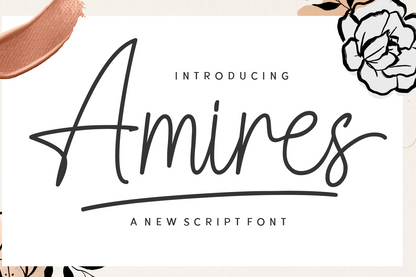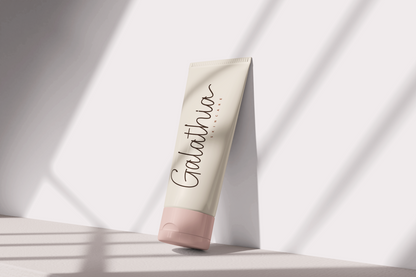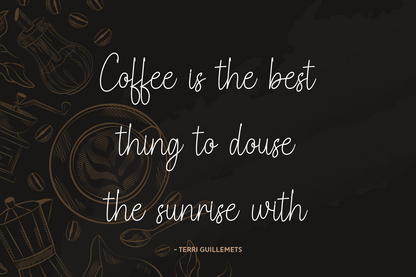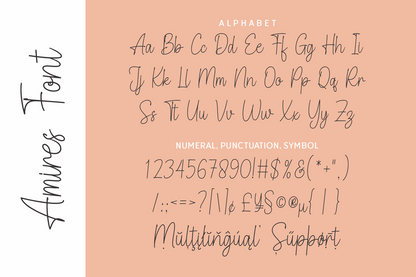
Amires is a stylish script font with a clean and casual elegance. Featuring natural flow and a graceful underline, it’s perfect for modern branding, wedding stationery, logos, social media posts, and anything that calls for a handwritten touch. Amires brings personality and warmth without losing simplicity.